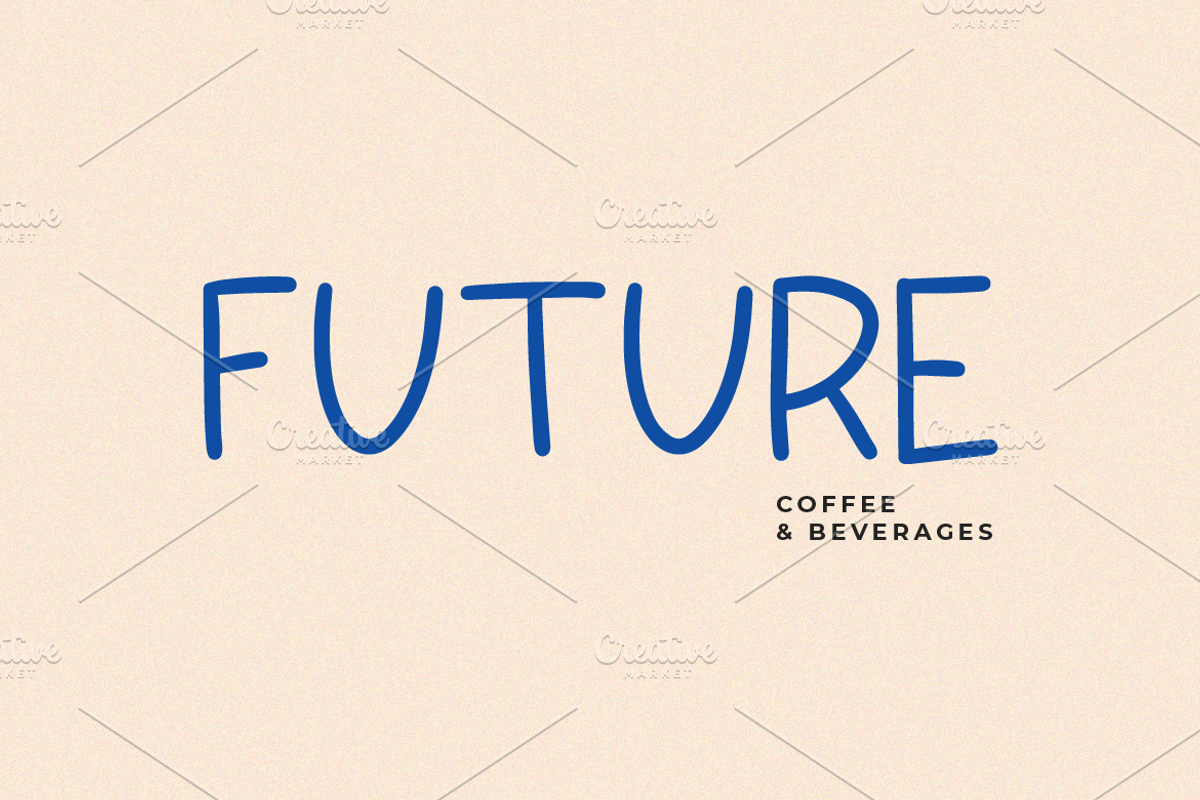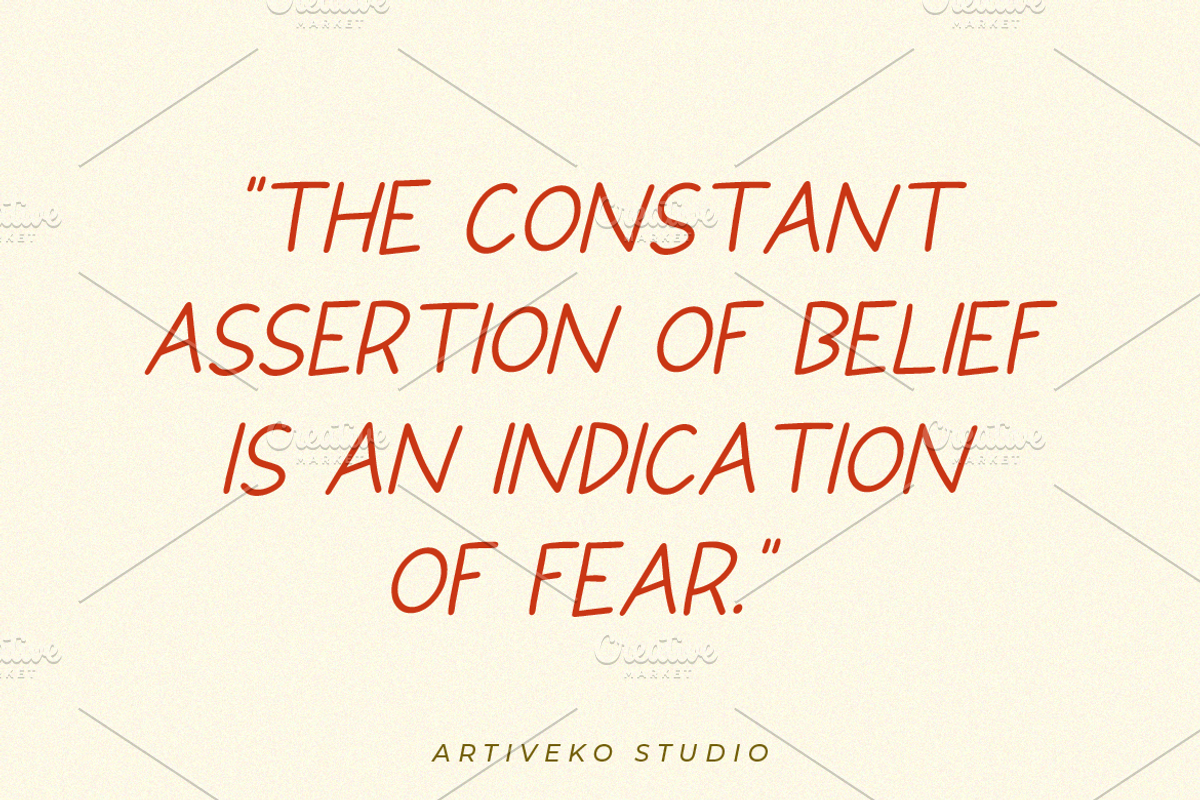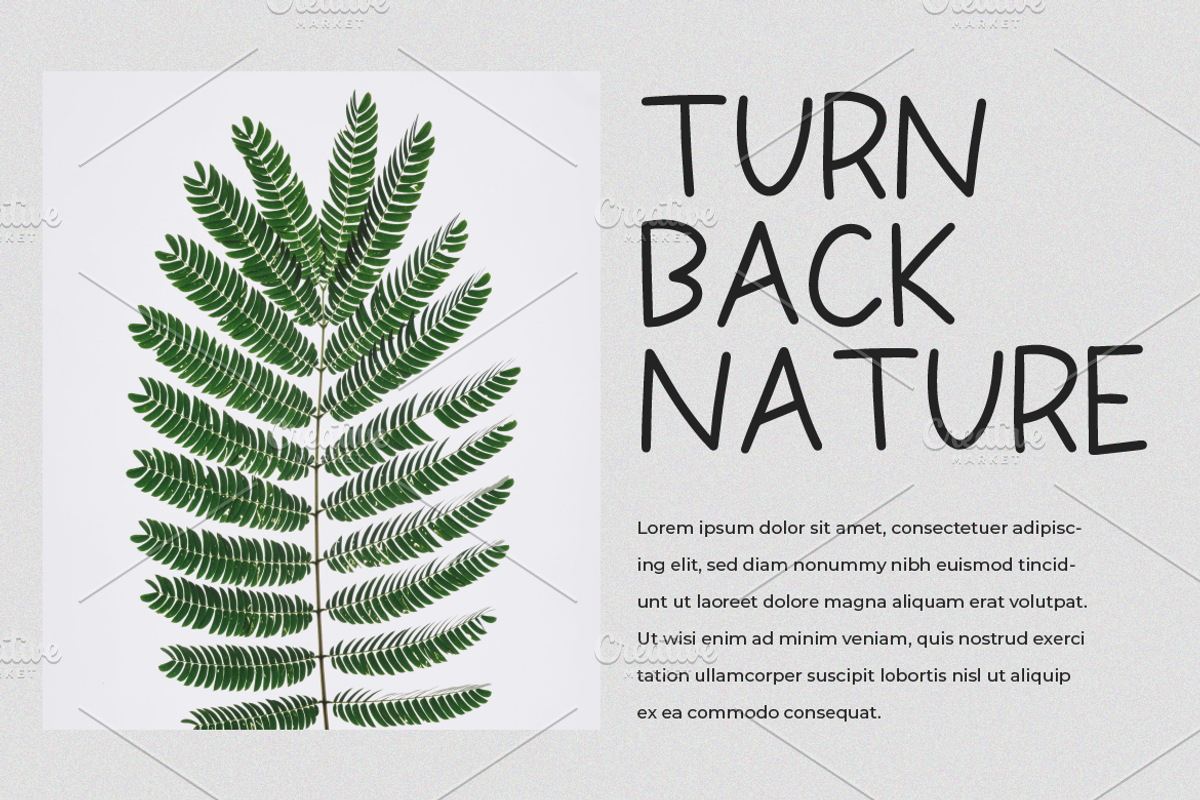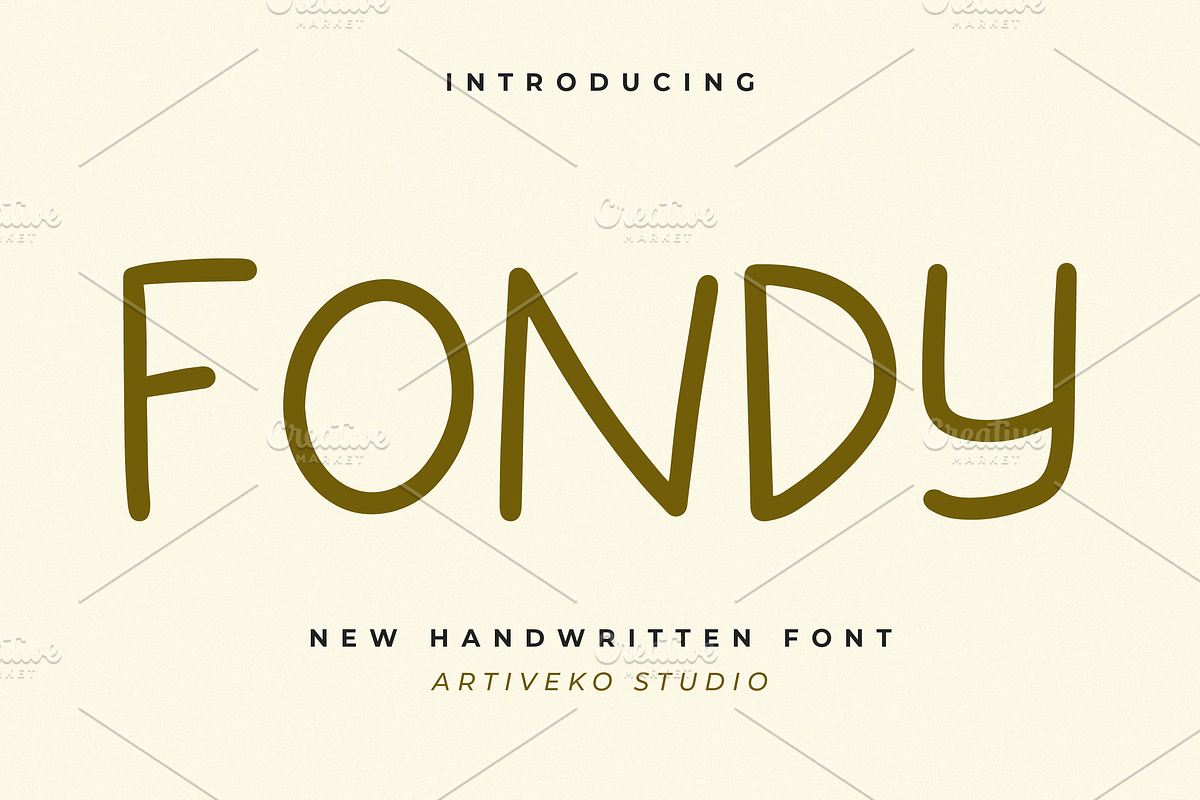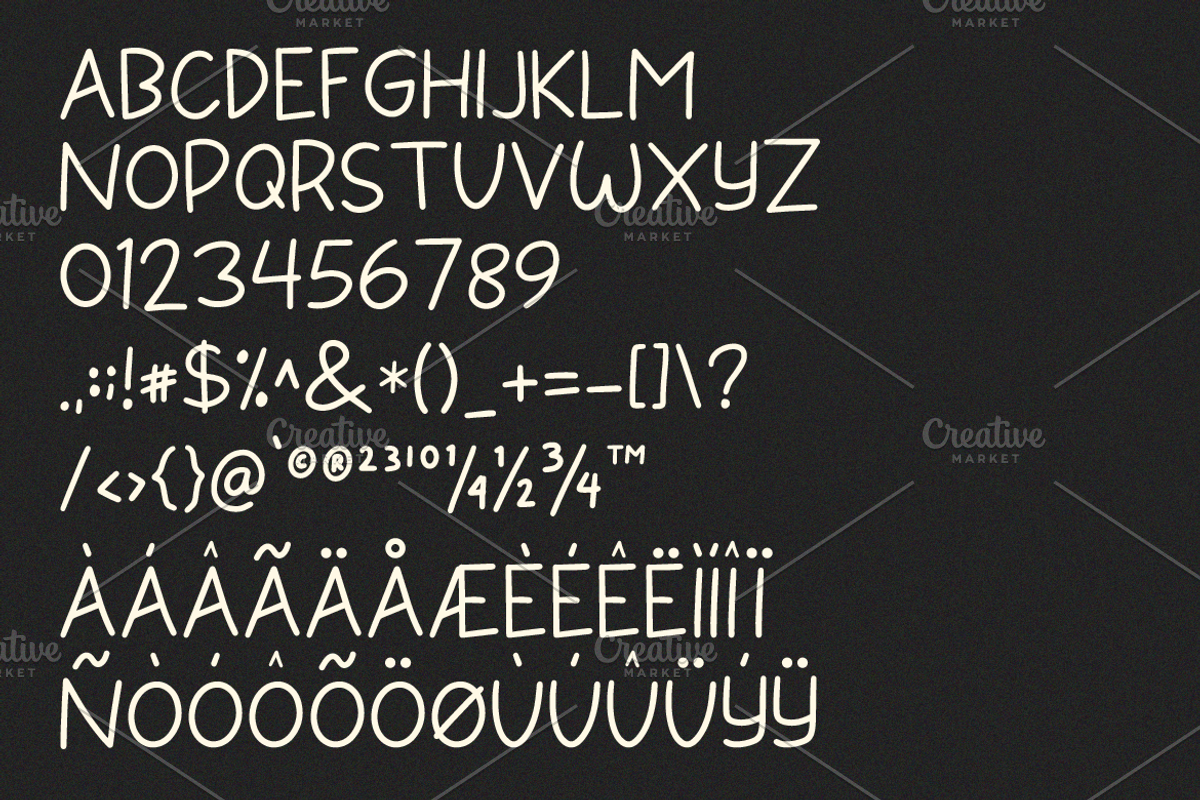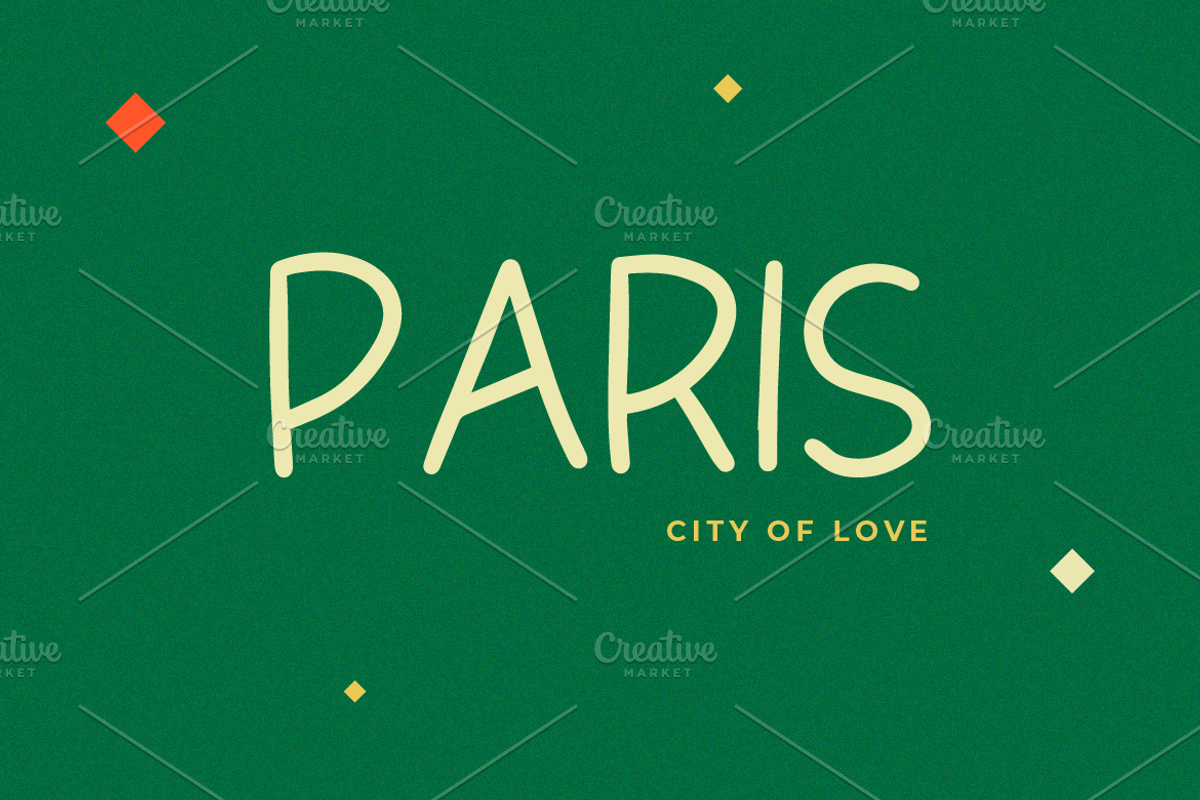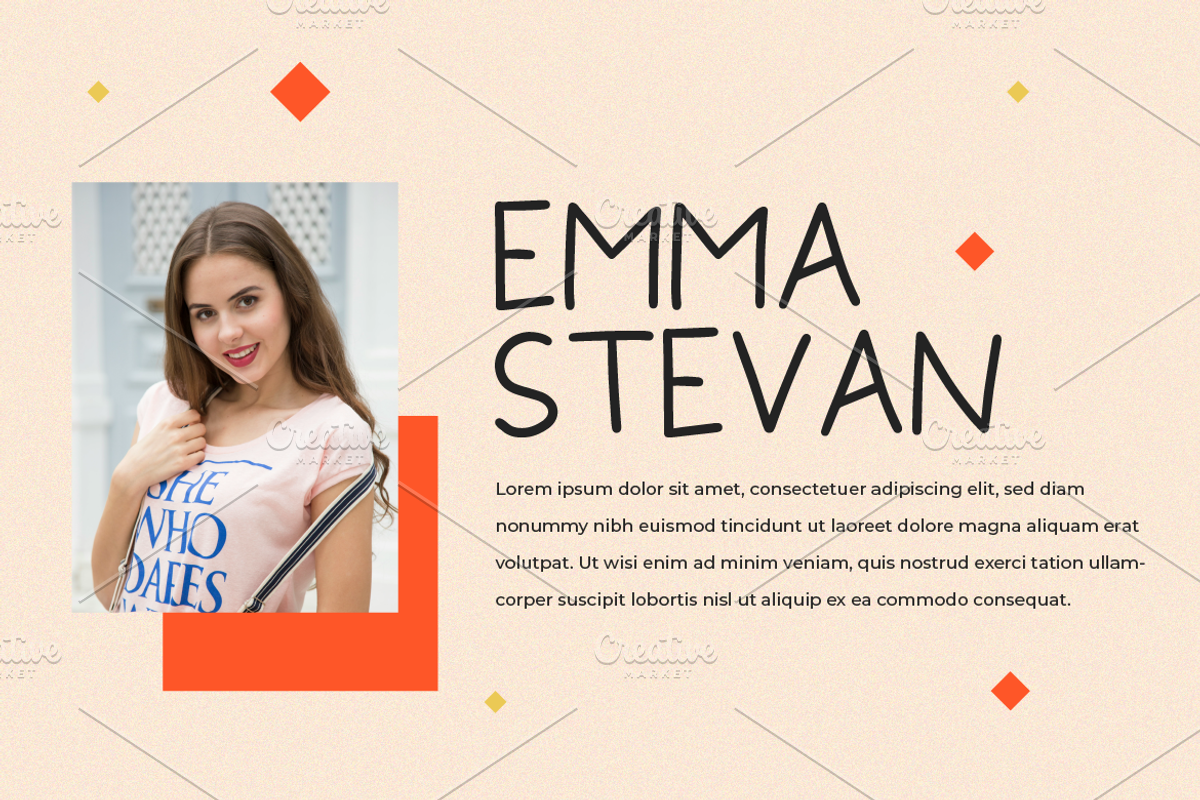
Fondy Handwritten Typeface
Fondy is a charming handwritten font by Iwan Alwan, featuring smooth, natural strokes that mimic the beauty of personal handwriting. Perfect for invitations, greeting cards, branding, and creative projects, Fondy brings a warm, handcrafted feel to any design. With multilingual support, ligatures, and alternates, Fondy adds a personal and artistic touch, making it ideal for projects that require an authentic, handwritten style.